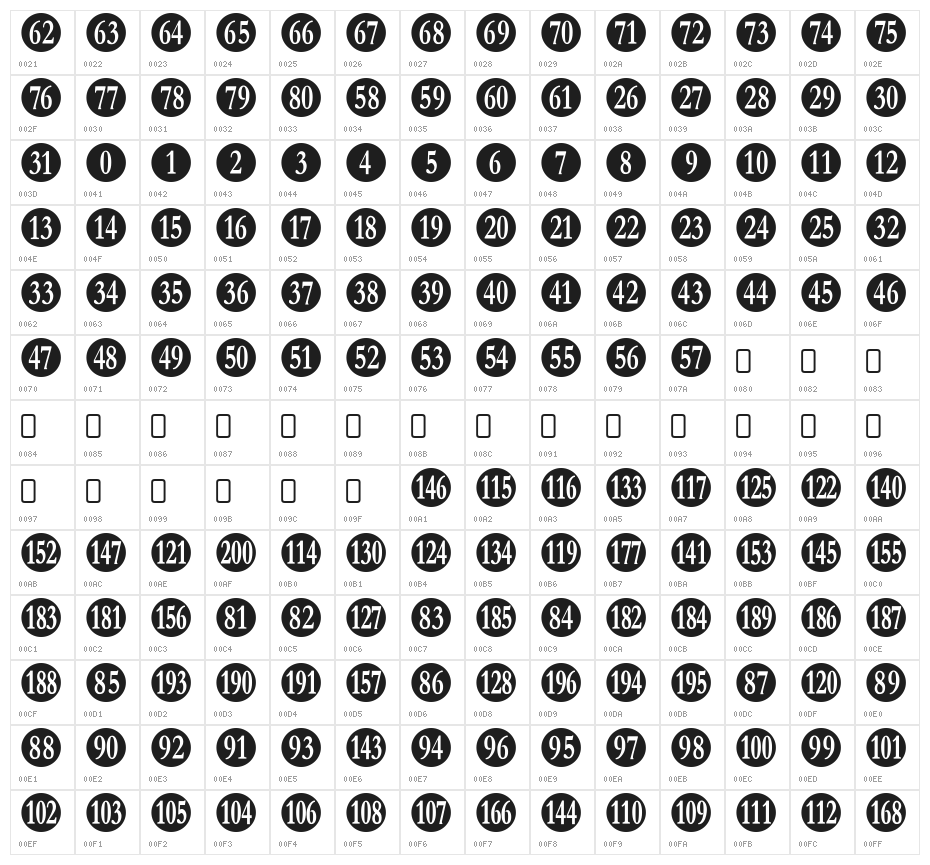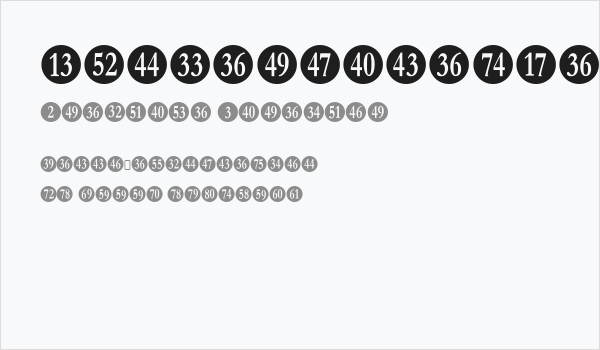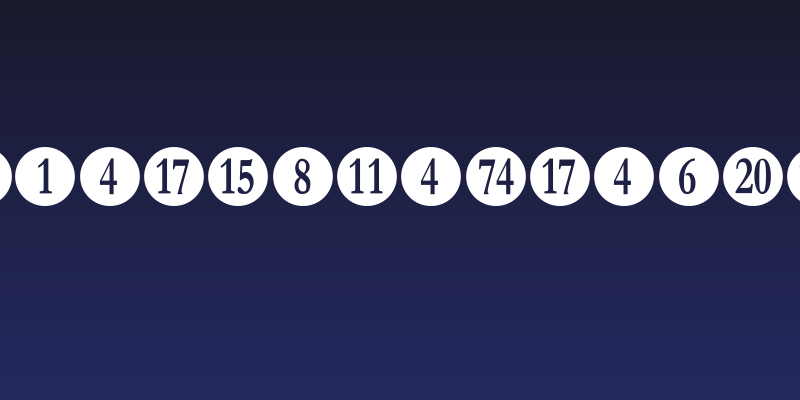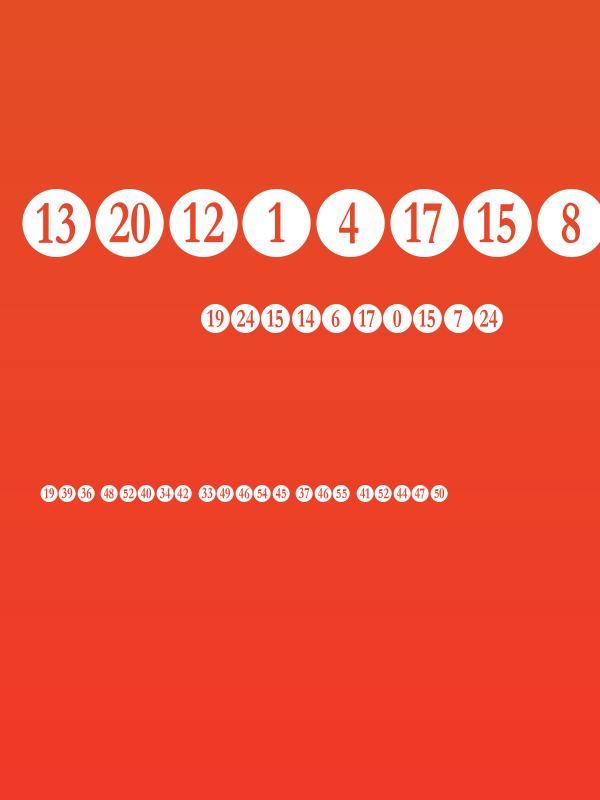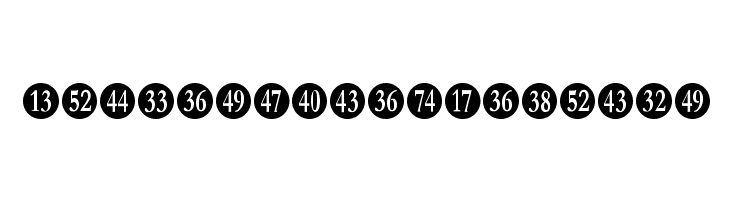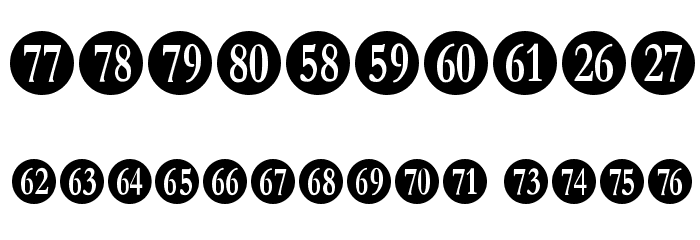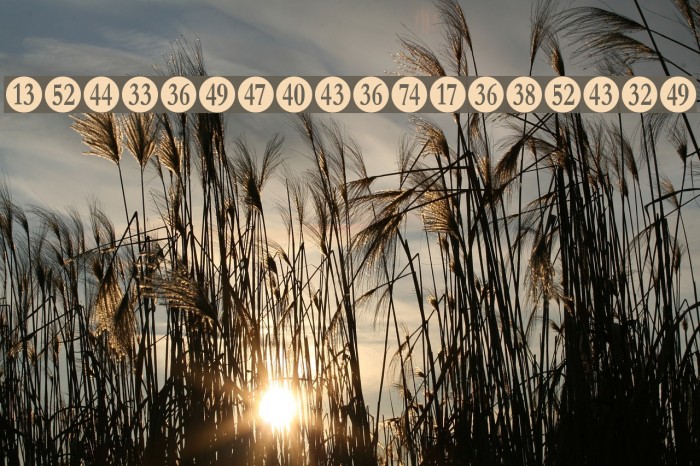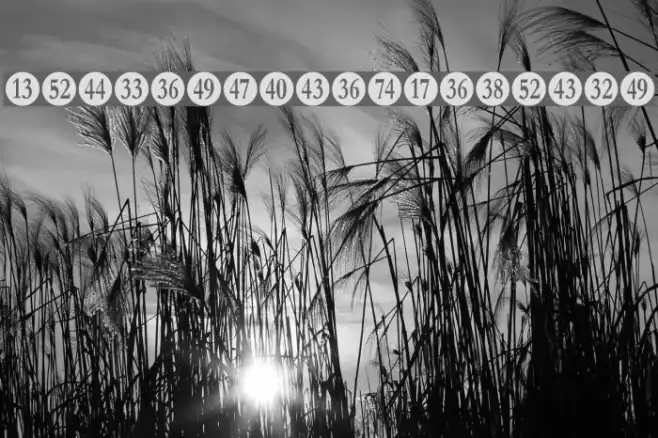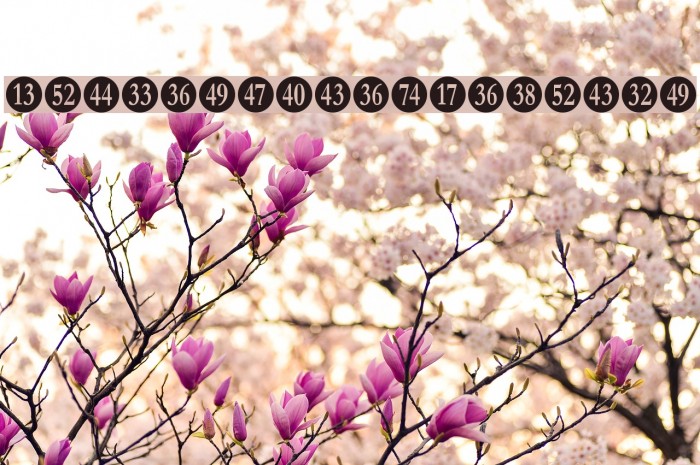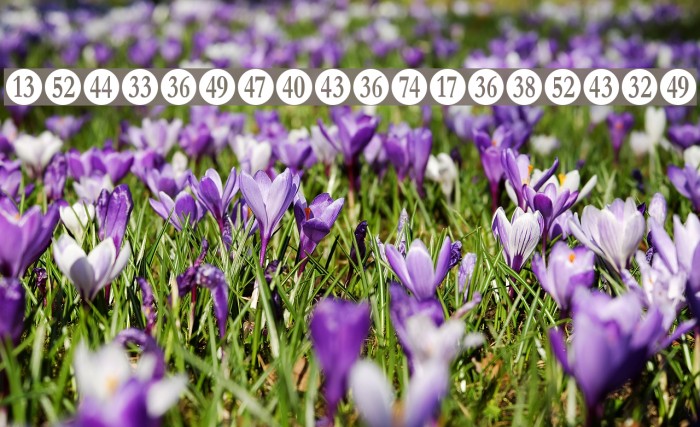
Numberpile-Regular Font
Numberpile-Regular Description
This font features bold, rounded numbers enclosed within solid black circles, creating a striking and easily readable appearance. Each numeral is centered within its circle, offering a consistent and uniform look across the entire set. The numbers are presented in a classic serif style, with slight embellishments that add a touch of elegance. The high contrast between the white numerals and the black background ensures excellent visibility, making it suitable for various design applications where clarity is paramount. The uniform size and spacing of the circles contribute to a neat and orderly presentation, ideal for structured layouts.
| Overall Style | Classic |
| Use Case | Headlines, Infographics, Educational materials |
| Proposed Projects | Ideal for educational materials, infographics, calendars, or any project requiring clear numerical representation. |